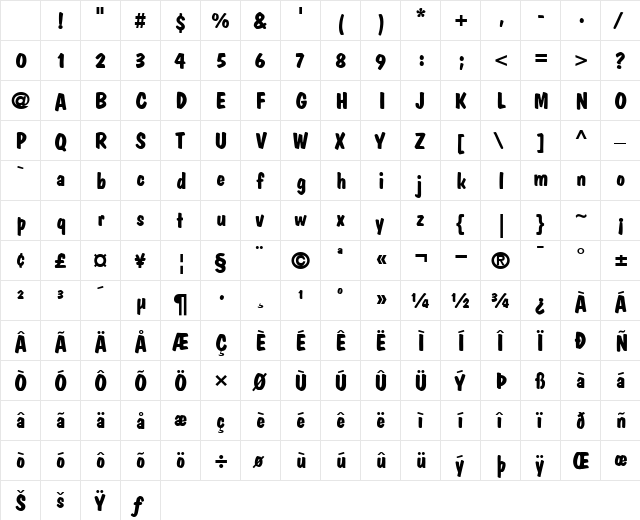
Complete DomCasual Bold glyph index. Displaying only characters natively supported by DomCasual Bold font.
DomCasual is a composed and adaptable typeface that performs quietly and consistently across a wide range of design contexts. Its bold stroke weight gives it real presence on the page.
Pro Tip: Use DomCasual in both headline and body roles to test its range before committing to a single application.